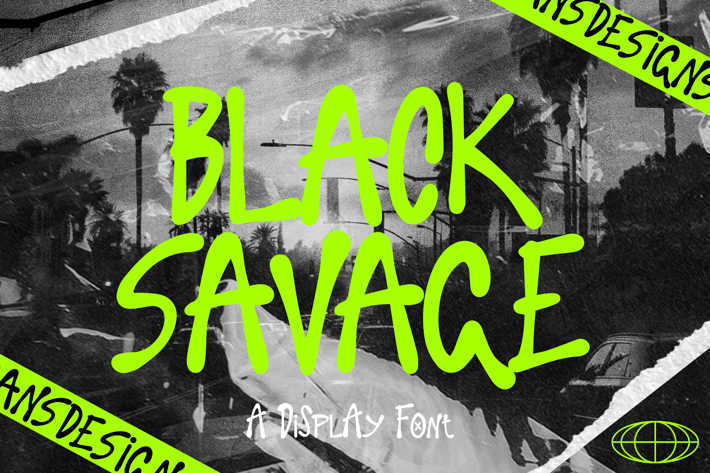
Black Savage Modern Ink Marker Display Font
Black Savage Modern Ink Marker Display Font a distinct, highly detailed. Marker Display Font.
It would make a great choice for exquisite retro-urban designs, business branding, logos, Apparel designs, and more.